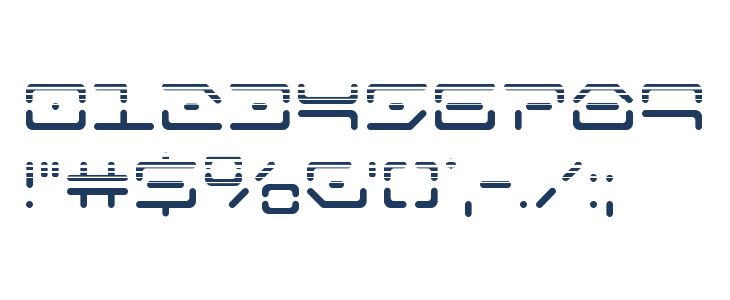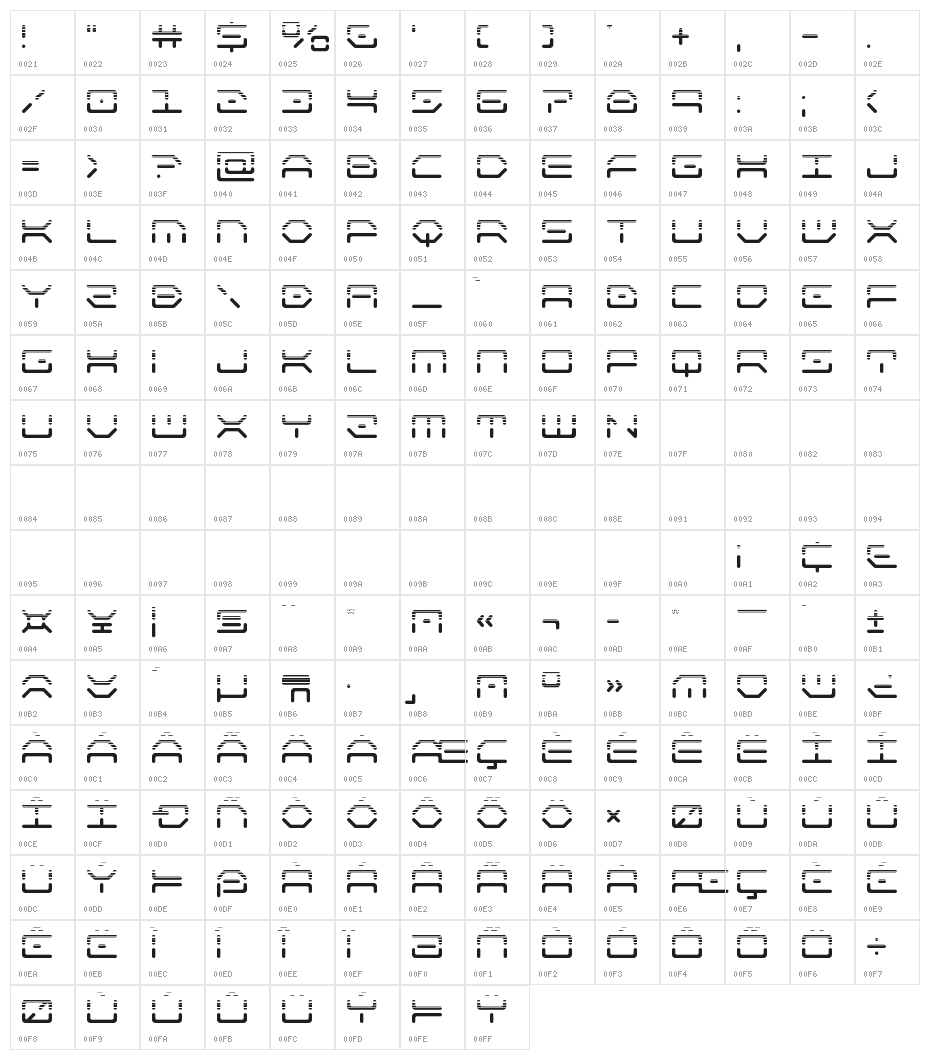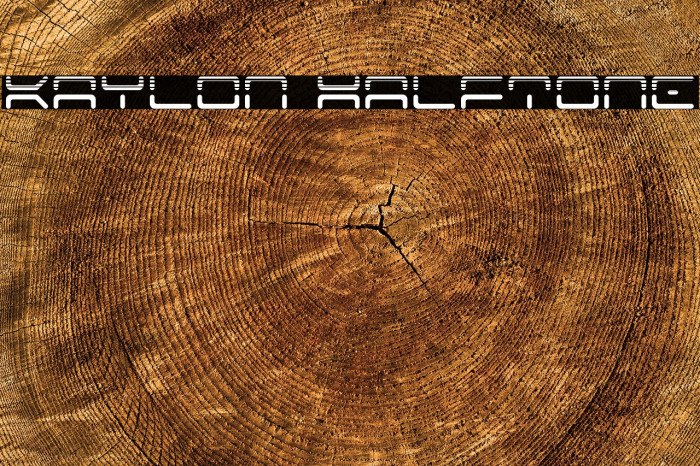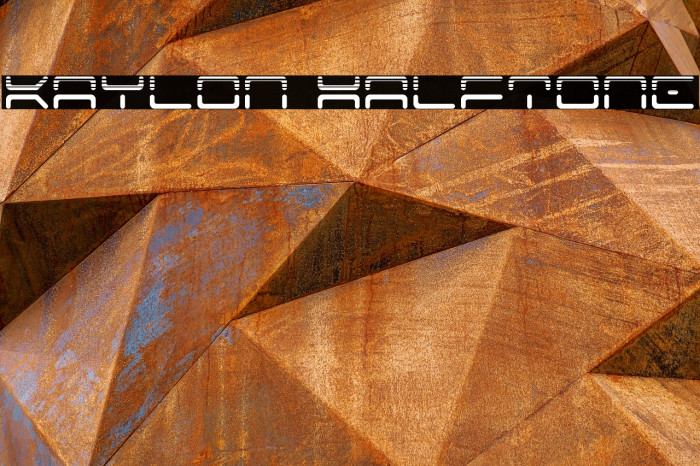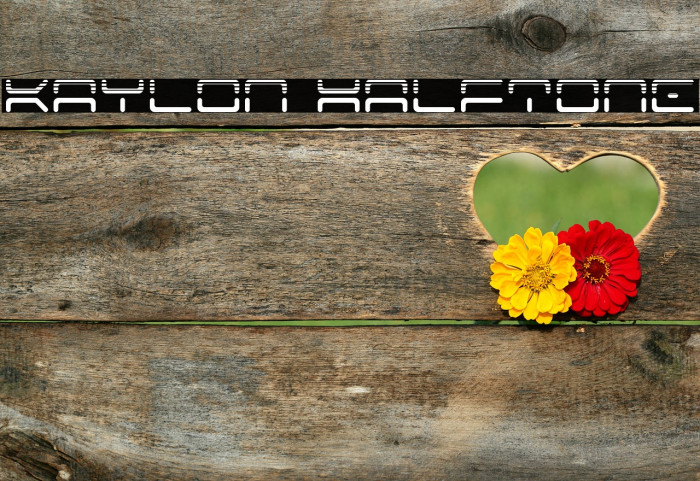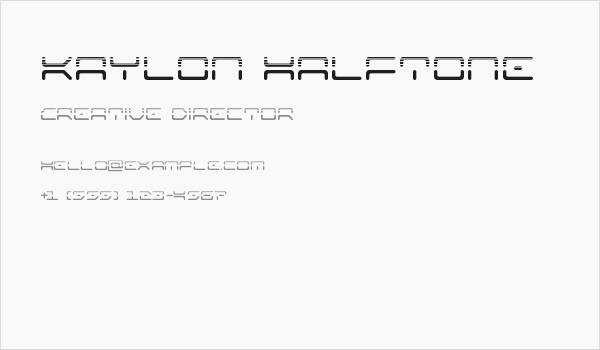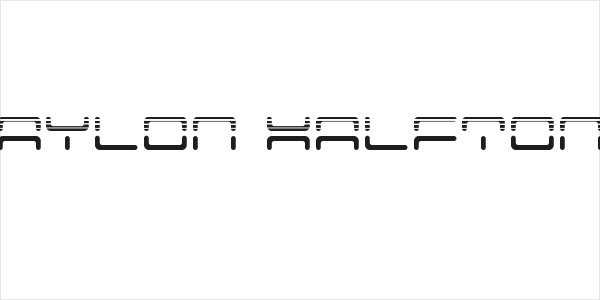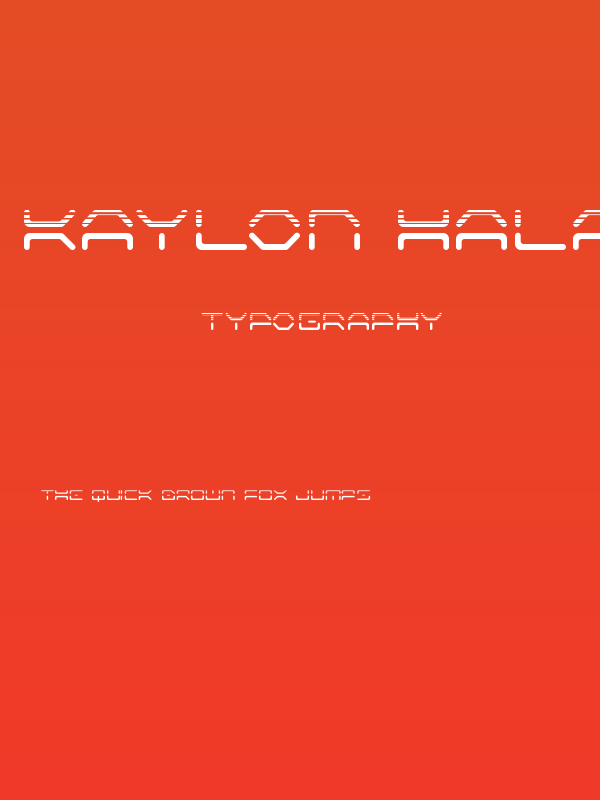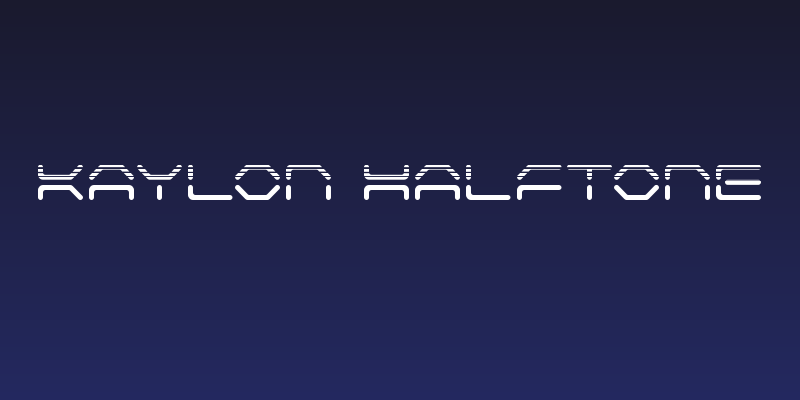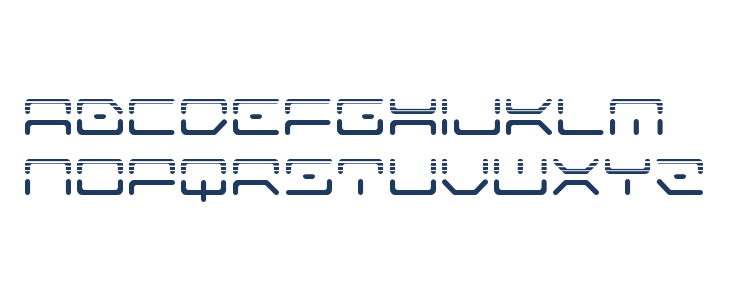
Kaylon Halftone Font
Kaylon Halftone Description
This font features a futuristic and digital aesthetic, characterized by its unique halftone pattern within each character. The design incorporates a series of horizontal lines and dots that create a sense of movement and modernity. Each letter and number is crafted with a geometric precision, offering a distinct and eye-catching appearance. The characters are evenly spaced, maintaining a consistent visual rhythm. This font is ideal for projects that require a tech-savvy or avant-garde look, making it suitable for digital interfaces, gaming titles, or sci-fi themed designs.
| Proposed Projects | Ideal for digital interfaces, gaming titles, sci-fi themed designs, and tech branding. |